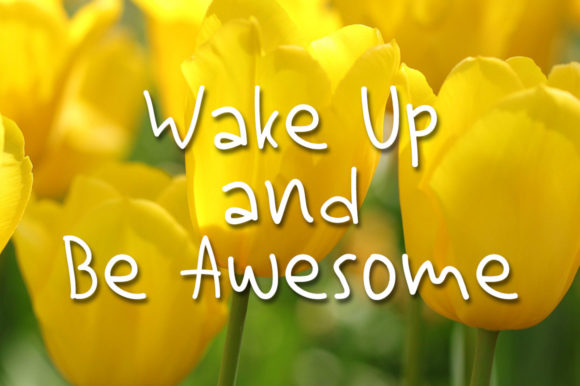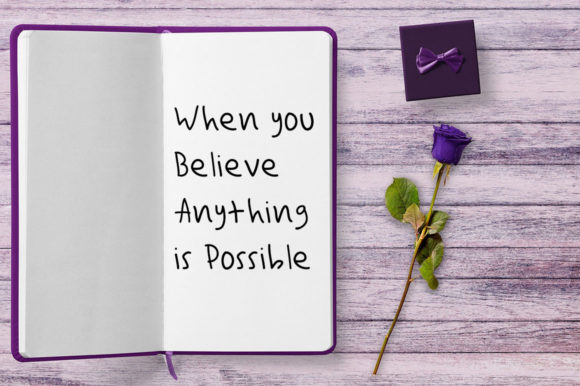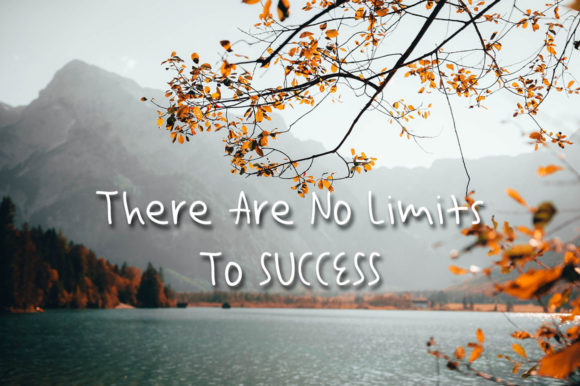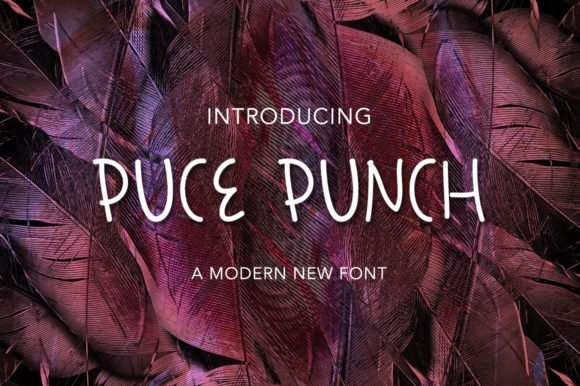
Introduction to Puce Punch Font
Puce Punch is a bouncy and casual handwritten font.
Clean and a little bit quirky, this font is the perfect fit for all of your logos, branding, social media, and crafty DIY projects .
Puce Punch Font offers exceptional quality and versatility, making it a valuable addition to your design toolkit. Whether you’re creating for personal projects or commercial use, Puce Punch Font delivers professional results.